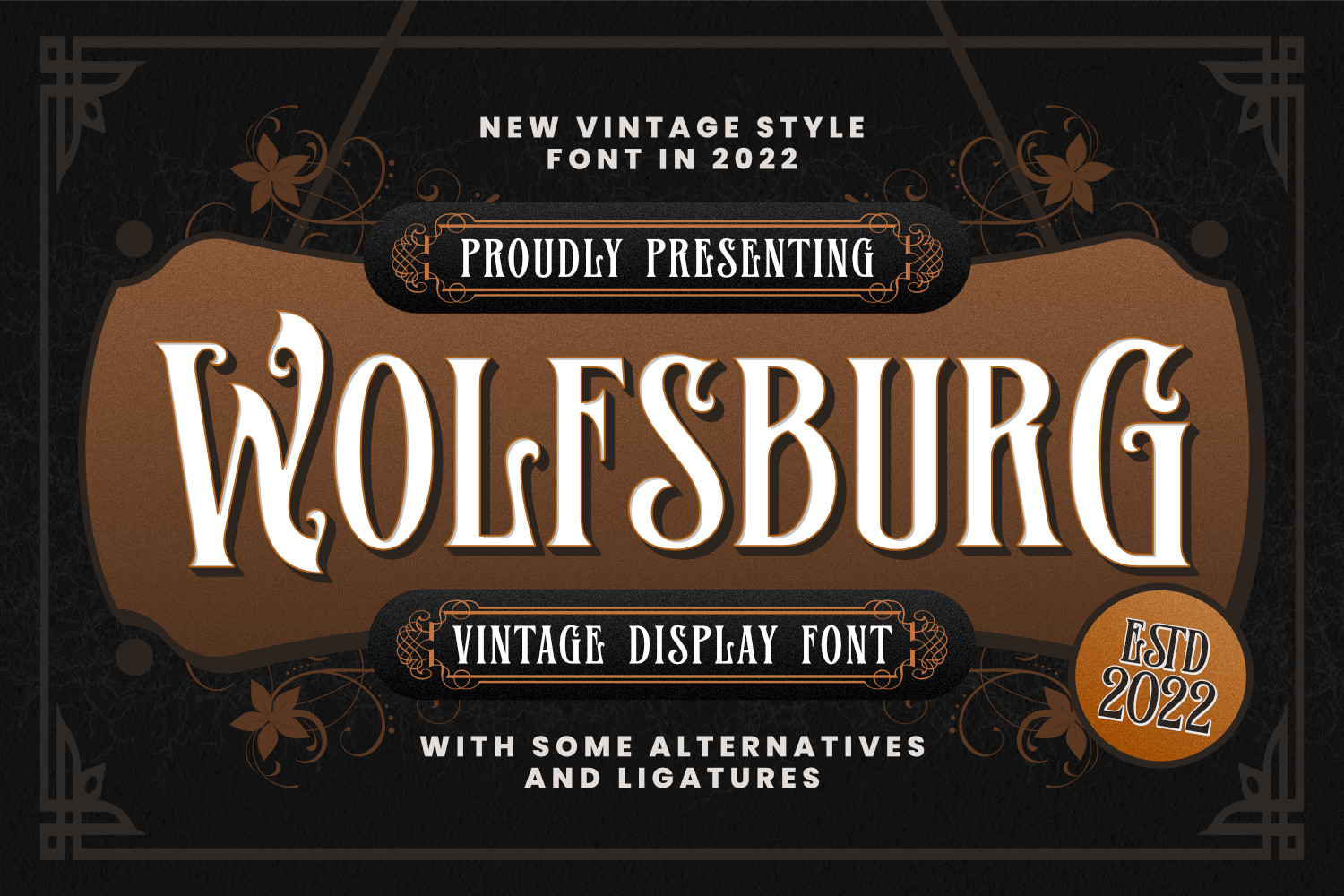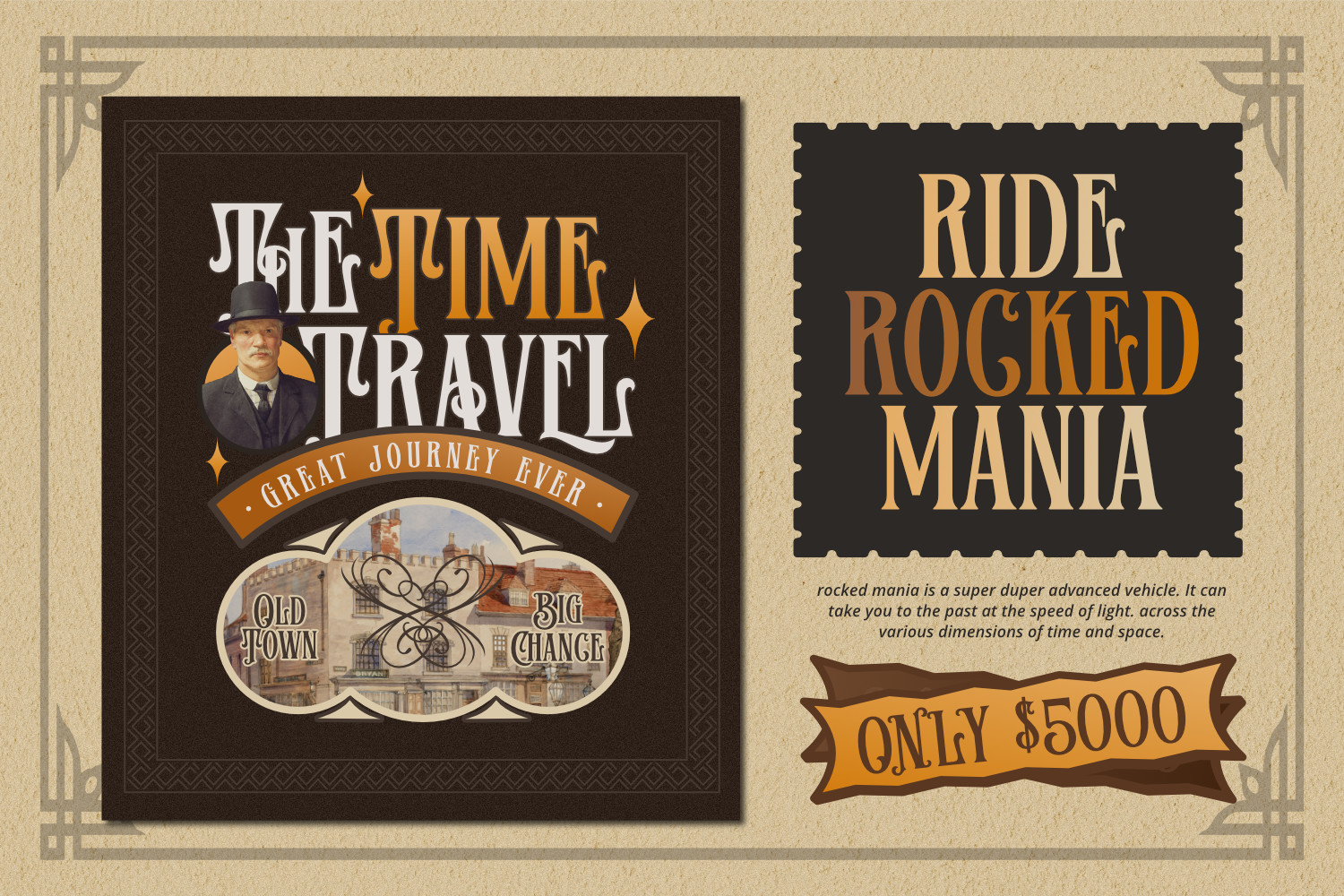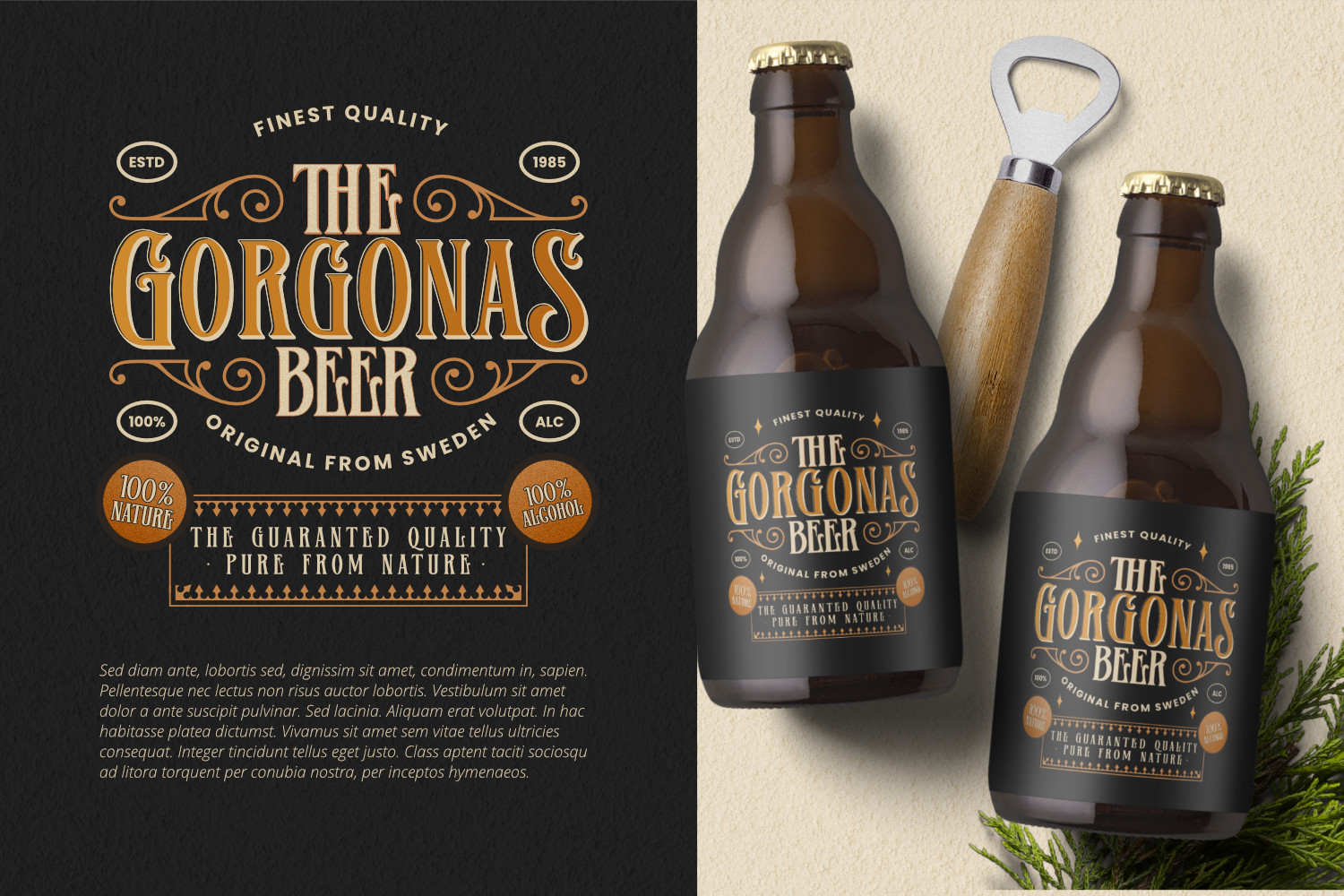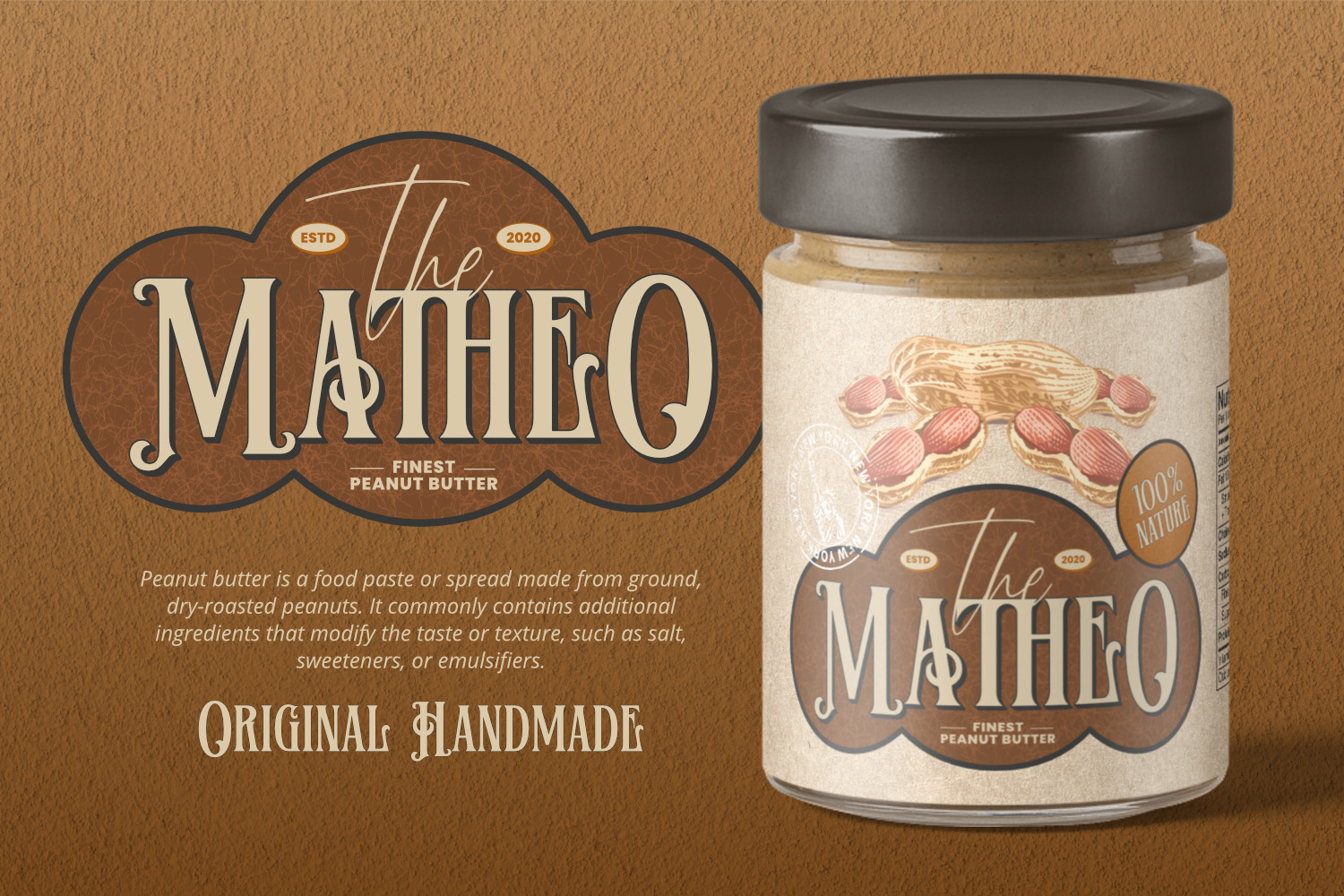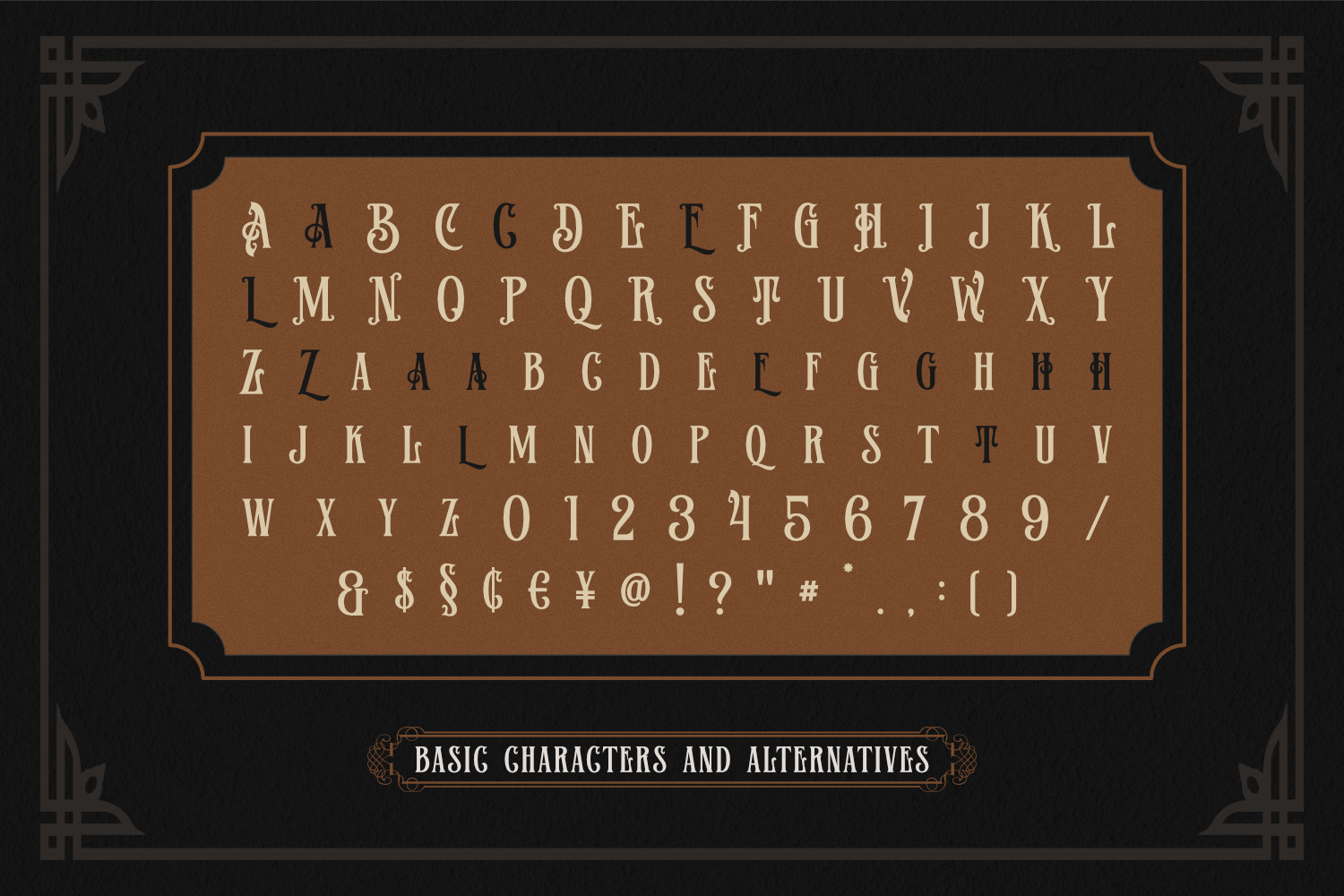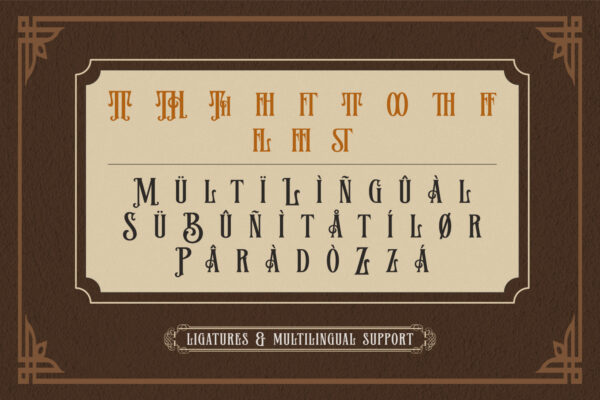
Wolfsburg is a bold vintage display font that blends ornamental classicism with a modern presentation. Designed with strong uppercase characters and whimsical alternates, it carries a nostalgic spirit perfect for branding, labels, and historical-themed designs. The intricate curves and striking serifs make Wolfsburg a centerpiece for visual storytelling, ideal for posters, packaging, and editorial headers.
Included in the font are stylistic alternates and ligatures that enhance design flexibility and richness. Wolfsburg also supports multilingual characters, making it versatile across various languages. Whether you’re designing an old-timey beer label, a vintage movie title, or an elegant signage, Wolfsburg offers both personality and elegance in one solid typeface.